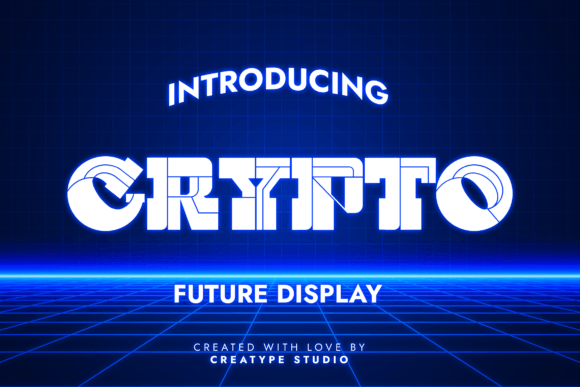
Journey into the world of digital artistry with our extraordinary font creation, Crypto Font - the ultimate fusion of modern elegance and futuristic charm. Dive into a realm of boundless creativity, where your imagination takes center stage. Designed with meticulous attention to detail, Crypto Font captivates with its distinct character, adding an irresistible allure to your digital creations.
Unleash your inner designer and explore the endless possibilities that await you with Crypto Font. Create captivating logos that leave a lasting impression, elevate your social media presence with visually stunning posts, or craft eye-catching advertisements that demand attention. Let your imagination soar as you design elegant wedding invitations, stationery that exudes personality, and product packaging that commands attention.
From the subtle nuances of branding projects to the bold statements of product designs, Crypto Font adapts seamlessly to your creative vision. Experiment with watermarks that add a touch of exclusivity, or let your creativity flow freely as you designphotography that captures the essence of the moment. Whether you're creating stunning labels for your products or crafting personalized invitations for special occasions, Crypto Font is your trusted companion, transforming your ideas into visual masterpieces.
With its versatility and timeless appeal, Crypto Font transcends the boundaries of ordinary fonts. Embrace the charm of its modern aesthetic, perfect for capturing the attention of your audience. Let your creativity shine through as you weave visual narratives that resonate with your customers, leaving an indelible mark on their minds.
Step into the future of digital design with Crypto Font, your gateway to a world of boundless creativity. Let your imagination run wild as you explore the myriad possibilities it offers, and watch as your projects come alive with breathtaking beauty and captivating charm.
Unlock the power of Crypto Font today and embark on a journey of digital artistry that will leave you inspired and your audience amazed. Embrace the extraordinary and redefine the boundaries of visual storytelling.